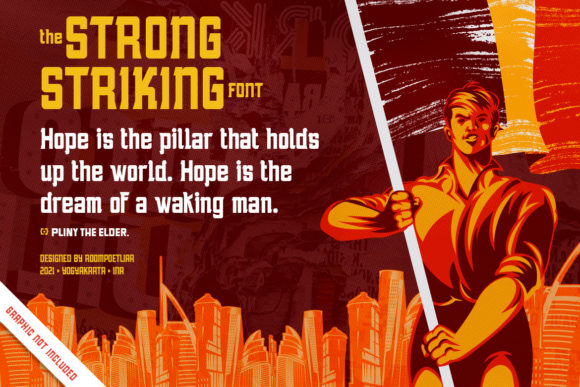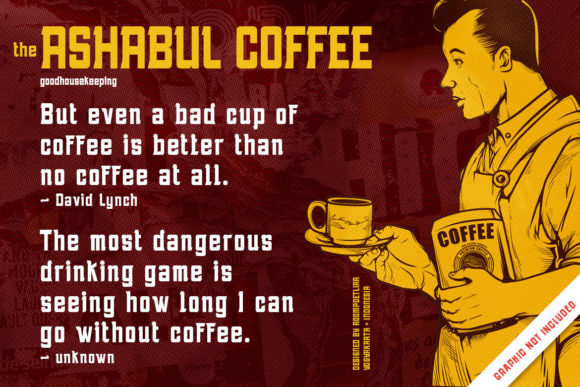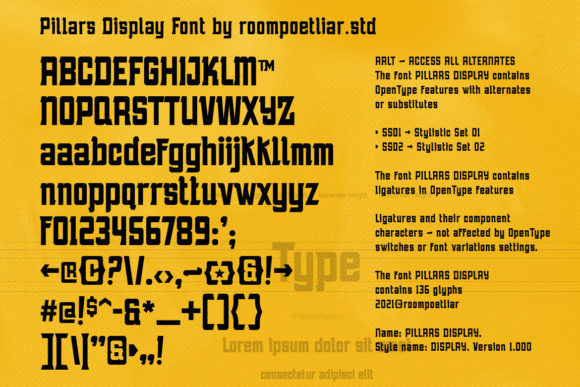
Introduction to Pillars Font
You’re brainstorming ideas for your latest creative project and you need a font that grabs attention. You’ve scrolled through countless design resources, but nothing seems quite right. That’s when you stumble upon the perfect solution – the Pillars Font. This bold and thick lettered display font is sure to make your designs stand out from the crowd.
Whether you’re creating a logo for your new sportswear line or designing a t-shirt for a music festival, the Pillars Font is the perfect choice. Its versatility and high-quality design make it an invaluable resource for designers of all levels. With a free download available, you can start using it on your next creative project right away – even if it’s just a quick edit on a social media post. And with a transparent background option, you can easily place it over any image or design element.
Pillars Font
- High-quality font design suitable for creative projects
- Unique characteristics include geometric shapes and clean lines, making it a popular design resource
Honest Review: Pillars Font
As a designer, I’m always on the lookout for high-quality design resources to elevate my creative projects. Recently, I came across the Pillars Font, and I’m excited to share my honest review with you.
- High-quality design: The font is beautifully crafted with clean lines and a transparent background, making it perfect for a variety of design applications.
- Professional look: The Pillars Font gives any design project a professional and polished look, making it an excellent choice for businesses and entrepreneurs.
- Limited customization options: While the font itself is high-quality, the customization options are limited, which may not be suitable for designers who want more control over their design elements.
- Not suitable for complex designs: The Pillars Font may not be the best choice for complex designs that require multiple font styles and sizes.
Overall, the Pillars Font is a great addition to any designer’s toolkit. While it has some limitations, its high-quality design and professional look make it an excellent choice for a variety of creative projects.
How to Use Pillars Font
The Pillars Font is a versatile design resource ideal for various creative projects. To utilize this font effectively, consider the following steps.
Getting the Most Out of Pillars Font
To maximize the effectiveness of the Pillars Font, use it in conjunction with a transparent background to create visually appealing designs. Experiment with different font sizes, styles, and colors to find the perfect combination for your creative project.
The Pillars Font is suitable for various design applications, including logos, headings, and body text in marketing materials, websites, and social media graphics.
Lato Font is a free download sans-serif typeface that’s great for use in web design, print materials, and digital products. It’s highly legible and works well in various sizes, making it perfect for use in body text and headings. Lato Font has a more minimalist look compared to Pillars Font, making it suitable for use in modern and minimalist design projects.